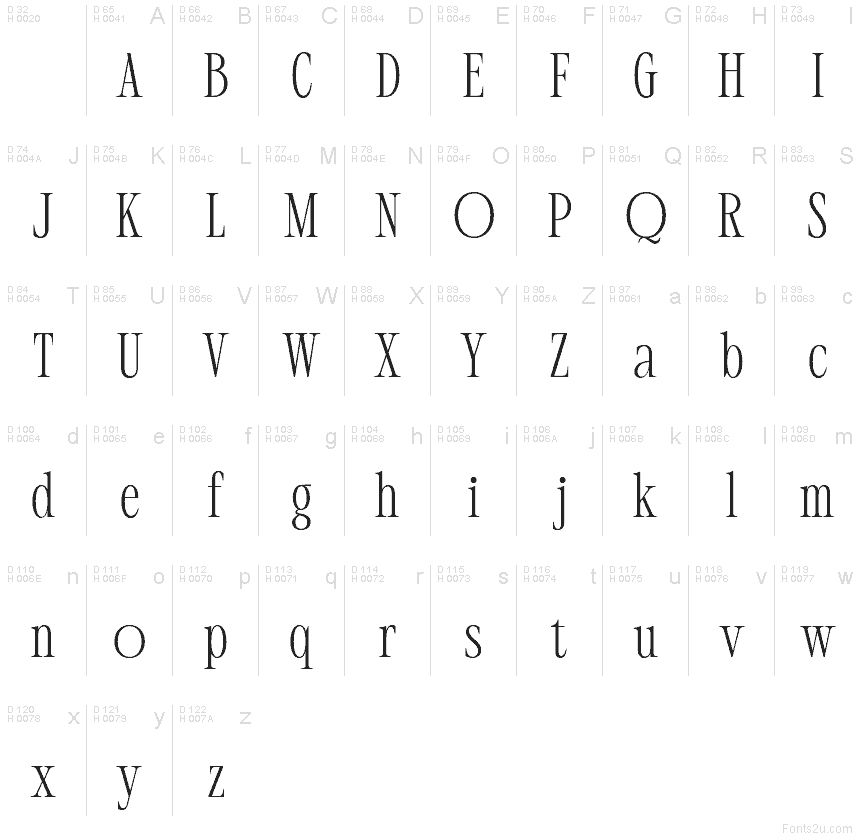
CS Quinary Regular Demo
CS Quinary font by Craft Supply Co. is a condensed serif typeface with an elegant and traditional design. The font is sophisticated, borrowing details from classic fonts to finally appear with a new appeal for all sorts of professional design applications. Its extreme thinness adds even more classiness, alongside other recognizable features.
Use this free serif font in adults-focused magazines, health blogs, educational typography designs, CVs and resumes, poetry books or book covers in general. It also fits on old-style websites or platforms that need to inherit some of the excitement provided by nostalgic things with modern technology.